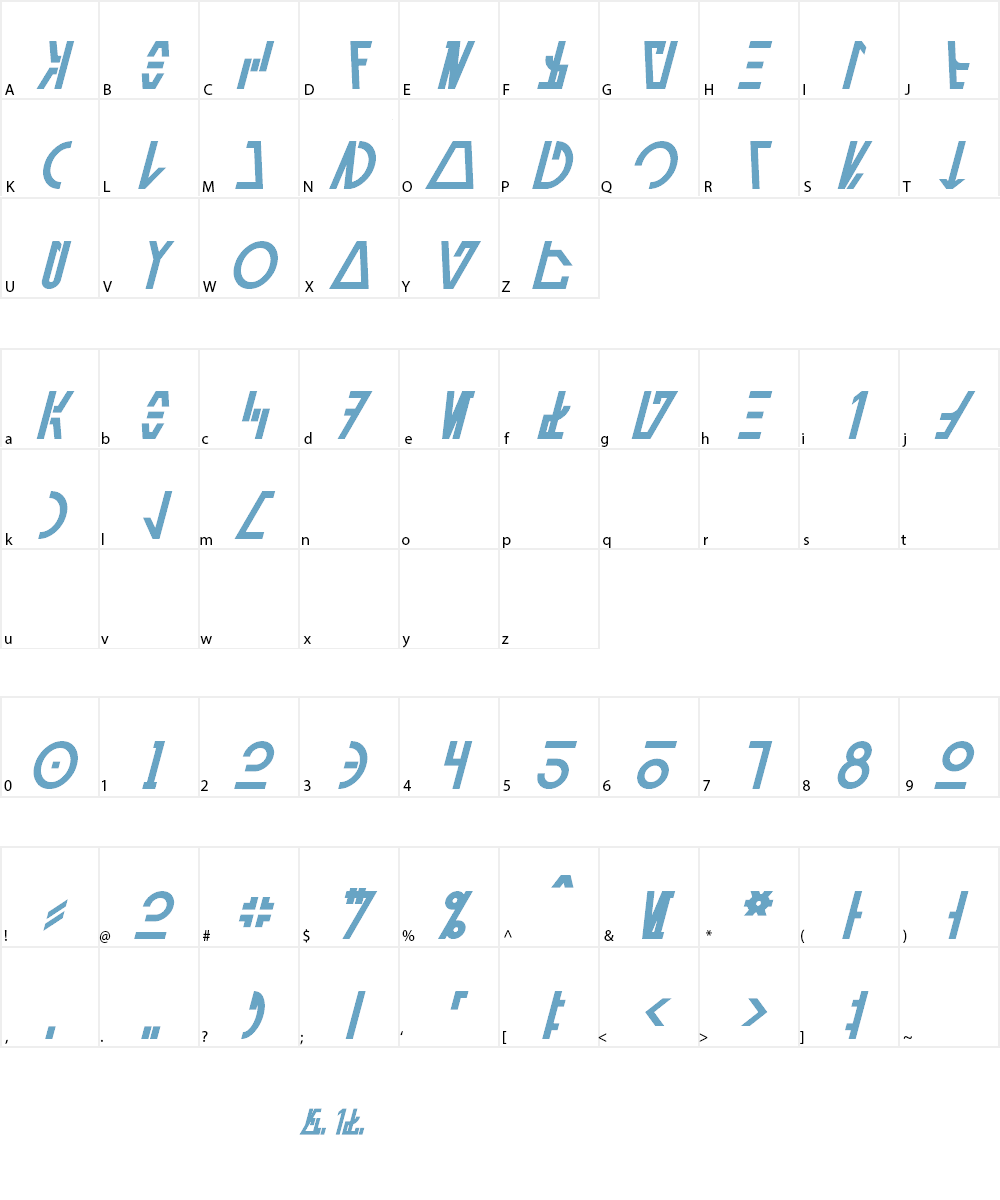
This variation on Star War’s classic “Aurebesh” language is given a film-noire look based on classic pulp marquees. Includes all canon characters, Hutt Cartel currency symbol, and version two of the numerals. Includes regular, bold, italic, and bold-italic weights.